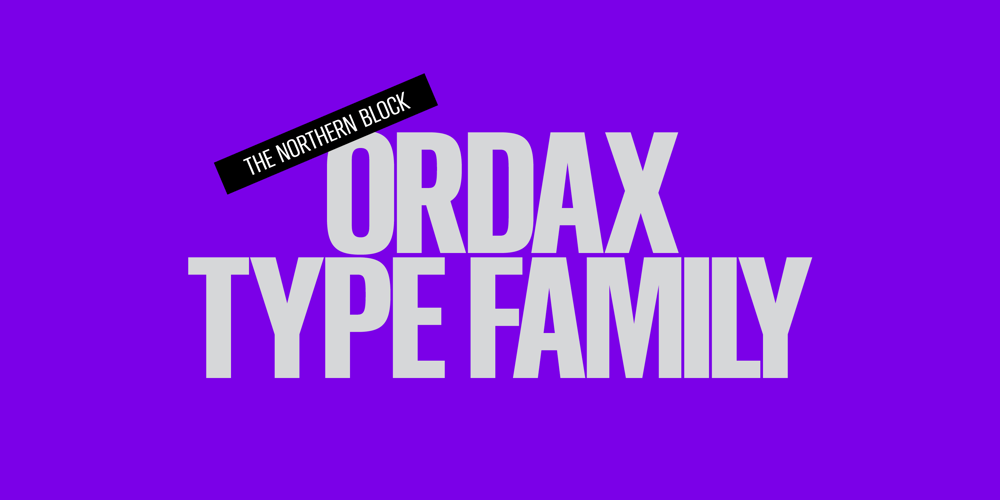
Ordax Font Family was designed by Pablo Balcells and published by The Northern Block. Ordax contains 8 styles and family package options. Ordax is a condensed display sans-serif type family. Simple, clean and modern, it was designed to assert reliability and gravitas to the content. It is particularly suitable for projects that demand simplicity and space economy. Details include four weights with matching italics, 447 characters and the Opentype features.